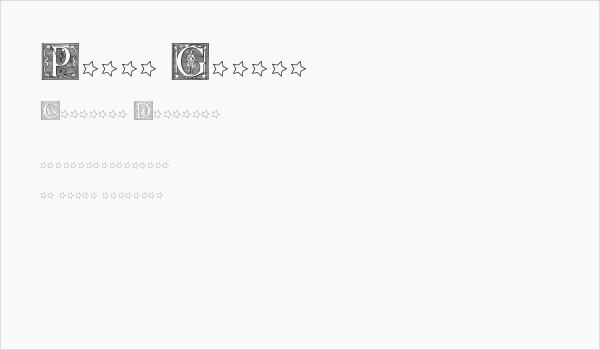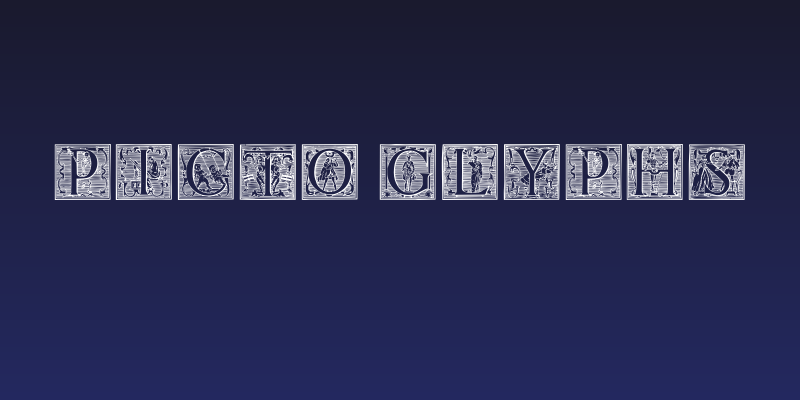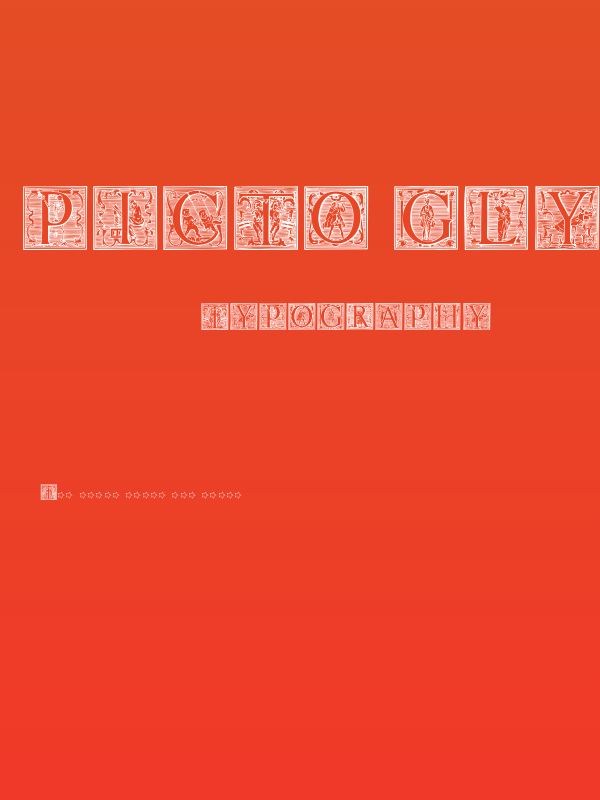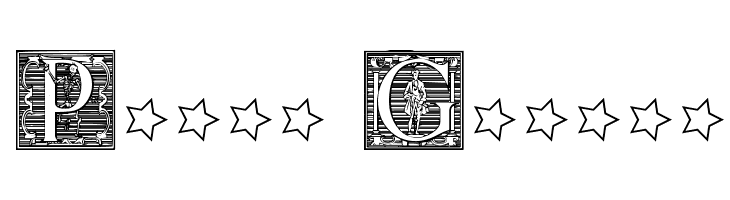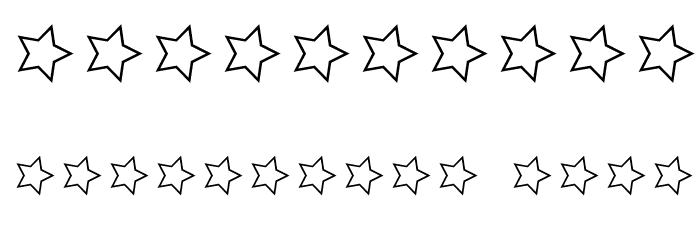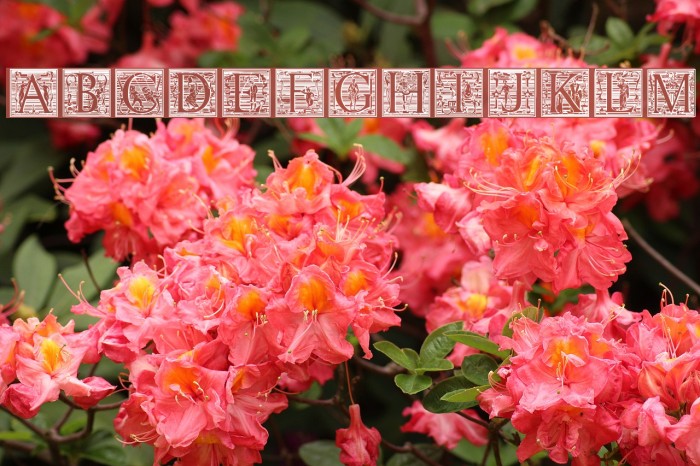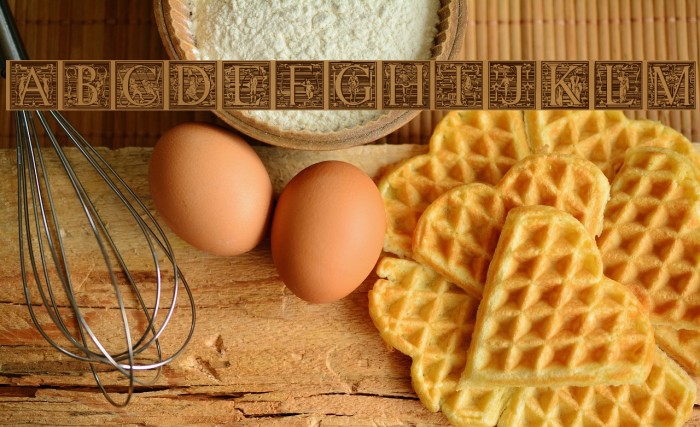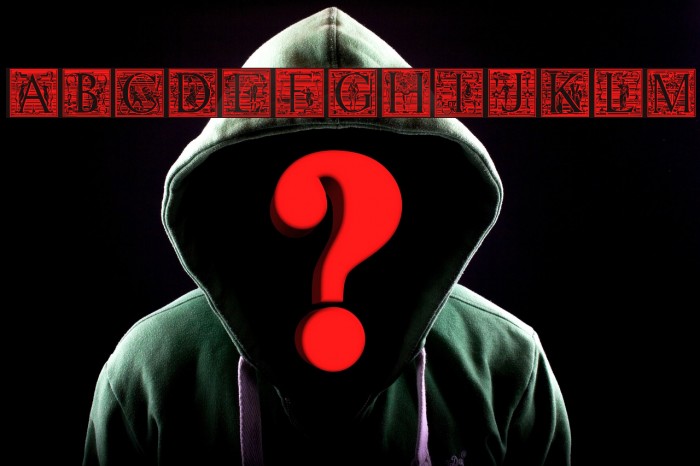
Picto Glyphs Font
Picto Glyphs Description
This font features a unique and artistic design where each letter is enclosed within a square, filled with intricate, abstract patterns reminiscent of ancient glyphs or pictographs. The uppercase letters are bold and decorative, making them stand out with their detailed backgrounds. The font does not include lowercase letters or numbers, focusing solely on the uppercase alphabet. The style is highly decorative, with each character appearing as a piece of art, suitable for creative and thematic projects. The absence of lowercase letters and numbers suggests its use is more for decorative purposes rather than functional text writing.